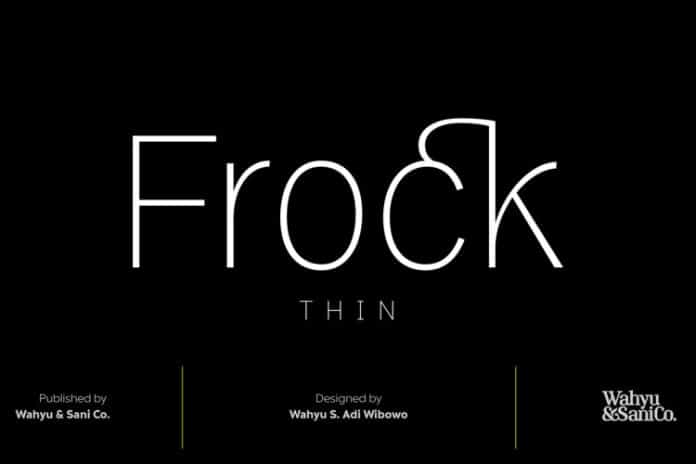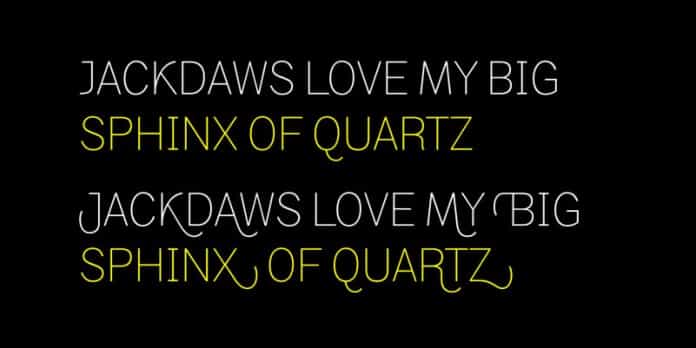
Frock is a modern and trendy sans-serif font that is suitable for all forms of businesses and purposes. Developed with the oval counter which has the slight slanted oval counter and medium contrast levels it belongs to the American Gothic fonts with the less formal look that can be observed here. They have realistic shaped italics with fluidity in movement of the letters as seen in the true italics while the upper case and lower case letters can be combined or used separately for display purposes such as logos, posters etc.